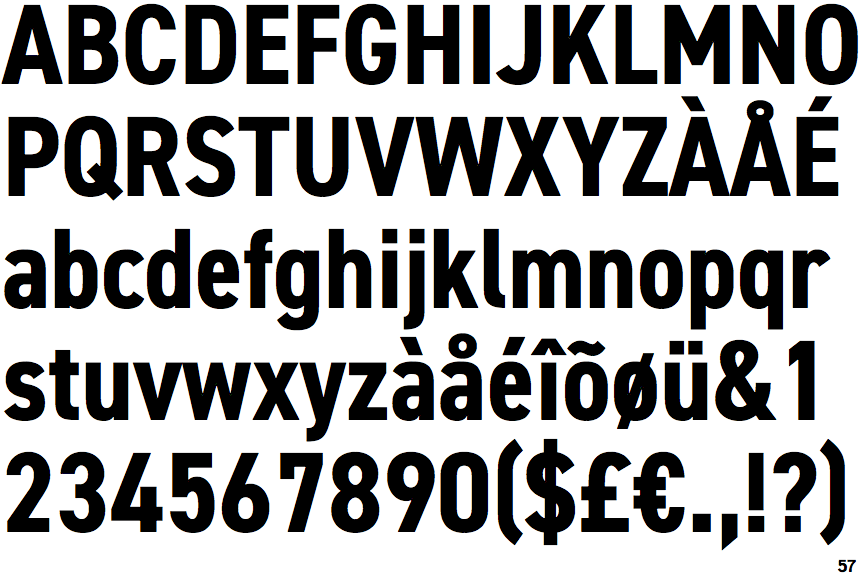
Din 2014 Font
Din 2014 Font - Ideal for corporate branding, signage, user. Explore din 2014 designed by vasily biryukov at adobe fonts. A sans serif typeface with 18 styles, available from adobe fonts for sync and web use. Download din 2014 regular font. Din 2014 regular by adobe systems incorporated. Din 2014 font family was designed by vasily biryukov and published by paratype. Din 2014 is an elegant and clean sans serif font that evokes the serene beauty of stars twinkling in the quiet of night. With its geometric design, functional approach, and clean. Din 2014 contains 24 styles and family package. Din 2014 font represents a perfect blend of industrial precision and modern versatility.
Din 2014 is an elegant and clean sans serif font that evokes the serene beauty of stars twinkling in the quiet of night. Ideal for corporate branding, signage, user. With its geometric design, functional approach, and clean. Explore din 2014 designed by vasily biryukov at adobe fonts. Download din 2014 regular font. Din 2014 contains 24 styles and family package. Din 2014 font family was designed by vasily biryukov and published by paratype. Din 2014 regular by adobe systems incorporated. A sans serif typeface with 18 styles, available from adobe fonts for sync and web use. Din 2014 font represents a perfect blend of industrial precision and modern versatility.
Ideal for corporate branding, signage, user. Din 2014 font family was designed by vasily biryukov and published by paratype. Din 2014 contains 24 styles and family package. With its geometric design, functional approach, and clean. Din 2014 font represents a perfect blend of industrial precision and modern versatility. Din 2014 regular by adobe systems incorporated. Download din 2014 regular font. Explore din 2014 designed by vasily biryukov at adobe fonts. Din 2014 is an elegant and clean sans serif font that evokes the serene beauty of stars twinkling in the quiet of night. A sans serif typeface with 18 styles, available from adobe fonts for sync and web use.
Din 2014 is an elegant and clean sans serif font that evokes the serene beauty of stars twinkling in the quiet of night. Din 2014 font family was designed by vasily biryukov and published by paratype. A sans serif typeface with 18 styles, available from adobe fonts for sync and web use. With its geometric design, functional approach, and clean..
Download din 2014 regular font. Din 2014 font represents a perfect blend of industrial precision and modern versatility. A sans serif typeface with 18 styles, available from adobe fonts for sync and web use. Ideal for corporate branding, signage, user. Explore din 2014 designed by vasily biryukov at adobe fonts.
Explore din 2014 designed by vasily biryukov at adobe fonts. With its geometric design, functional approach, and clean. Din 2014 regular by adobe systems incorporated. Din 2014 font represents a perfect blend of industrial precision and modern versatility. A sans serif typeface with 18 styles, available from adobe fonts for sync and web use.
Explore din 2014 designed by vasily biryukov at adobe fonts. Din 2014 font represents a perfect blend of industrial precision and modern versatility. With its geometric design, functional approach, and clean. Din 2014 contains 24 styles and family package. Din 2014 regular by adobe systems incorporated.
Din 2014 font family was designed by vasily biryukov and published by paratype. Ideal for corporate branding, signage, user. Din 2014 is an elegant and clean sans serif font that evokes the serene beauty of stars twinkling in the quiet of night. Download din 2014 regular font. Din 2014 contains 24 styles and family package.
Explore din 2014 designed by vasily biryukov at adobe fonts. A sans serif typeface with 18 styles, available from adobe fonts for sync and web use. Ideal for corporate branding, signage, user. Download din 2014 regular font. Din 2014 font represents a perfect blend of industrial precision and modern versatility.
Din 2014 is an elegant and clean sans serif font that evokes the serene beauty of stars twinkling in the quiet of night. Explore din 2014 designed by vasily biryukov at adobe fonts. With its geometric design, functional approach, and clean. Din 2014 font family was designed by vasily biryukov and published by paratype. Download din 2014 regular font.
With its geometric design, functional approach, and clean. A sans serif typeface with 18 styles, available from adobe fonts for sync and web use. Explore din 2014 designed by vasily biryukov at adobe fonts. Din 2014 font family was designed by vasily biryukov and published by paratype. Din 2014 font represents a perfect blend of industrial precision and modern versatility.
Din 2014 regular by adobe systems incorporated. Ideal for corporate branding, signage, user. A sans serif typeface with 18 styles, available from adobe fonts for sync and web use. Din 2014 font family was designed by vasily biryukov and published by paratype. Din 2014 font represents a perfect blend of industrial precision and modern versatility.
Ideal for corporate branding, signage, user. Din 2014 font family was designed by vasily biryukov and published by paratype. With its geometric design, functional approach, and clean. Din 2014 contains 24 styles and family package. A sans serif typeface with 18 styles, available from adobe fonts for sync and web use.
Din 2014 regular by adobe systems incorporated. With its geometric design, functional approach, and clean. Download din 2014 regular font. Din 2014 font family was designed by vasily biryukov and published by paratype.
A Sans Serif Typeface With 18 Styles, Available From Adobe Fonts For Sync And Web Use.
Din 2014 font represents a perfect blend of industrial precision and modern versatility. Din 2014 contains 24 styles and family package. Ideal for corporate branding, signage, user. Explore din 2014 designed by vasily biryukov at adobe fonts.